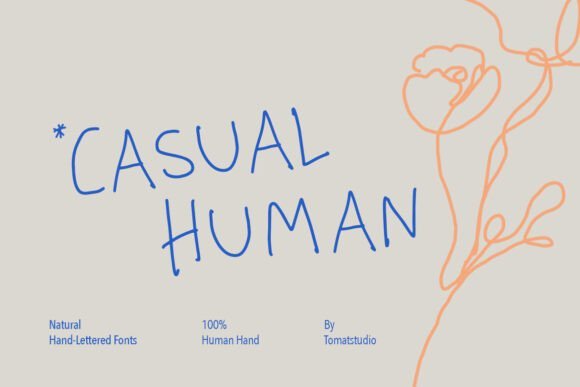
A Handwritten Touch: Introducing Casual Human Font
Have you ever been brainstorming a new design project, sipping coffee, and suddenly, an idea strikes? The scribbles on your notebook become the foundation of a beautiful concept. That’s the magic of human creativity. The Casual Human Font captures this essence, bringing the raw, natural feel of handwritten text to your designs.
This 100% hand-lettered font is perfect for designers seeking a unique, rough touch. It’s ideal for projects that require a more casual, kid-friendly, or natural theme. With the Casual Human Font, you’ll get both regular and bold versions to add depth to your designs. Its value lies in its authenticity, making it stand out from generic, computer-generated fonts. Whether you’re working on a children’s book, a nature-inspired campaign, or a personal project, the Casual Human Font is a great addition to your design toolkit.
Casual Human Font Key Features
- Font Size and Style: The font family includes 6 styles: Casual Human Regular, Casual Human Italic, Casual Human Bold, Casual Human Bold Italic, Casual Human Outline, and Casual Human Shadow. Each style is available in 3 font sizes: 12pt, 14pt, and 18pt.
- Unique Characteristics: Casual Human Font features a distinctive, handwritten feel with subtle imperfections, giving it a friendly and approachable tone.
- Language Support: The font supports a wide range of languages, including Latin, Cyrillic, and Greek scripts, making it a versatile choice for multilingual designs.
- Font Metrics: The font has a x-height of 550, an ascender height of 750, and a descender height of 250, providing a balanced and readable appearance.
Casual Human Font Review
I’ve had the chance to dive into the Casual Human Font, and here’s my honest take on it.
- The font’s relaxed, approachable feel is perfect for informal content, like social media posts or blogs.
- The character set is comprehensive, making it suitable for a wide range of languages.
- The font’s weight and spacing make it easy to read, even at smaller sizes.
- The design is clean and modern, giving it a fresh, contemporary feel.
- The font may not be suitable for formal or professional content, as it can come across as too casual.
- The lack of a bold or italic version can limit its versatility.
- The font’s design may not be as distinctive or memorable as some other fonts.
Overall, the Casual Human Font is a solid choice for casual, everyday use. It’s easy to read, modern, and versatile. However, it may not be the best fit for more formal or high-end projects.
Tips for Getting the Most Out of Casual Human Font
To get the most out of Casual Human Font, use it for:
- Blog posts and articles
- Social media graphics and captions
Remember to pair the Casual Human Font with a clean and simple design to create a visually appealing and professional look.
Alternatives to Casual Human Font
Open Sans is a clean and modern sans-serif font. It’s highly legible and suitable for digital interfaces. Use it for body text and headings where a neutral tone is desired.
Comparison to Casual Human Font: Open Sans has a more formal tone, making it suitable for professional applications. It lacks the relaxed feel of Casual Human Font but provides excellent readability.
Lato is a sans-serif font with a friendly and approachable feel. It’s suitable for use in applications where a human touch is desired without being too casual.
Comparison to Casual Human Font: Lato has a more refined and elegant feel compared to Casual Human Font, making it suitable for use in applications where a sense of sophistication is desired.
Montserrat is a sans-serif font inspired by urban typography. It’s highly legible and suitable for use in digital interfaces, especially those with a modern and urban feel.
Q: What is the character set and language support for Casual Human Font?
Casual Human Font supports the following character sets and languages: Latin, Greek, Cyrillic, and many special characters. It also supports a wide range of languages, including English, Spanish, French, German, Italian, Portuguese, Dutch, Russian, Chinese, Japanese, and many others. You can check the font’s documentation for a complete list of supported languages and character sets.